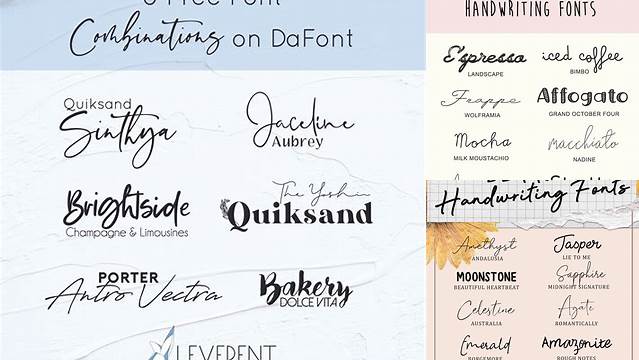
Handwriting Fonts: Free Dafont Downloads & Usage Guide
Hey guys! Are you on the hunt for that perfect handwritten touch to give your project some personality? Look no further! In this guide, we're diving deep into the world of handwriting fonts dafont, exploring everything from where to find them, how to use them, and even some of the coolest examples out there. Whether you're designing invitations, crafting a logo, or just want to add a personal flair to your digital notes, we've got you covered. So, grab a coffee, get comfy, and let's get started!
1. Exploring the Variety of Handwriting Fonts on Dafont
Dafont is a treasure trove when it comes to handwriting fonts dafont. You can find everything from elegant cursive scripts to playful, childlike scrawls. The sheer variety can be overwhelming, but that's part of the fun! Take some time to browse through the different categories. Are you looking for something formal for a wedding invitation, or something more casual for a blog post? Understanding your needs will help you narrow down your search. Remember to check the preview text to see how the font looks with your specific words or phrases. Many fonts also come with extra glyphs or alternate characters, which can add even more personality to your design. Don't be afraid to experiment and try out a few different fonts before settling on the perfect one. Finding the right handwriting fonts dafont is like finding the perfect pair of shoes – it might take a little trial and error, but it's worth it in the end!
3. Using Handwriting Fonts Dafont in Graphic Design Projects
Handwriting fonts dafont can add a unique touch to your graphic design projects, making them stand out from the crowd. Whether you're designing a logo, creating social media graphics, or working on a website, the right handwritten font can convey personality and authenticity. When using these fonts, consider the overall aesthetic of your project. Does the font match the tone and style you're going for? Is it legible and easy to read? Overusing handwritten fonts can sometimes make your design look cluttered or unprofessional, so use them sparingly and strategically. Pair them with clean, simple sans-serif fonts for a balanced and modern look. Also, pay attention to the kerning and tracking of the font, adjusting the spacing between letters to improve readability. Experiment with different colors, sizes, and weights to see what works best for your design. And most importantly, have fun! Let your creativity flow and see how handwriting fonts dafont can transform your projects.
4. Best Practices for Legibility with Handwriting Fonts
Alright, let's talk legibility. Handwriting fonts dafont are awesome, but let's be real – some of them can be a little tricky to read. To ensure your message gets across clearly, here are a few best practices. First, consider the size of the font. Handwritten fonts often look better and are easier to read when they're larger. Second, choose a font with clear and distinct letterforms. Avoid fonts that are too stylized or have overly elaborate flourishes. Third, pay attention to the contrast between the font color and the background color. High contrast will improve readability. Fourth, use ample spacing between lines and letters. Cramped text is difficult to read, no matter how beautiful the font is. Fifth, test your design on different devices and screen sizes to make sure the font looks good on everything from desktops to smartphones. By following these tips, you can ensure that your handwriting fonts dafont are both stylish and legible.
6. Pairing Handwriting Fonts with Other Font Styles
Handwriting fonts dafont are fantastic on their own, but they can be even more effective when paired with other font styles. The key is to create a balance between personality and readability. A common approach is to pair a handwritten font with a clean, simple sans-serif font. For example, you might use a handwritten font for headings and a sans-serif font for body text. This creates a visual hierarchy and makes the text easier to read. Another option is to pair a handwritten font with a classic serif font, such as Times New Roman or Garamond. This can create a sophisticated and timeless look. When pairing fonts, pay attention to the overall mood and tone of your design. Do the fonts complement each other, or do they clash? Experiment with different combinations until you find something that works. And remember, less is often more. It's usually best to stick to two or three fonts in a single design. So go ahead, mix and match those handwriting fonts dafont with other font styles to create something truly unique!
7. Using Handwriting Fonts for Logos and Branding
Using handwriting fonts dafont for logos and branding can give your brand a personal and authentic feel. A handwritten logo can convey a sense of creativity, warmth, and approachability. However, it's important to choose a font that is both visually appealing and legible. Avoid fonts that are too cluttered or difficult to read, especially at smaller sizes. Consider the overall style of your brand. Does a handwritten font align with your brand's values and personality? If you're a high-end luxury brand, a handwritten font might not be the best choice. But if you're a small business that values personal connection, a handwritten logo can be a great way to connect with your customers. Also, make sure to test your logo on different backgrounds and in different sizes to ensure it looks good in all contexts. And remember, a logo is more than just a font. It's a visual representation of your brand. So choose a handwriting fonts dafont that truly reflects who you are and what you stand for.
8. Handwriting Fonts for Wedding Invitations and Stationery
Handwriting fonts dafont are a classic choice for wedding invitations and stationery. They add a touch of elegance, romance, and personalization to your special day. Whether you're looking for a formal script or a more casual hand-lettered style, there's a handwritten font out there that's perfect for you. When choosing a font for your wedding invitations, consider the overall theme and style of your wedding. A formal wedding might call for a traditional script font, while a rustic or bohemian wedding might be better suited for a more informal handwritten font. Pay attention to the legibility of the font, especially when printing on textured paper. Test different font sizes and colors to see what looks best. And don't forget to include other design elements, such as floral illustrations or decorative borders, to enhance the overall look and feel of your invitations. With the right handwriting fonts dafont, your wedding invitations will be a beautiful reflection of your unique style and personality.
9. Creating a Personal Touch with Handwritten Fonts in Marketing
Handwriting fonts dafont can inject a dose of personality into your marketing materials, making your brand feel more approachable and human. In a world dominated by sleek, corporate designs, a touch of handwriting can help you stand out from the crowd. Use handwritten fonts in your social media graphics, email newsletters, website headers, and even print ads. A handwritten font can make your message feel more personal and authentic, as if it were written just for your audience. However, be mindful of legibility. Choose fonts that are easy to read, even at smaller sizes. And don't overuse handwritten fonts – a little goes a long way. Pair them with clean, simple fonts for a balanced and professional look. By incorporating handwriting fonts dafont into your marketing strategy, you can create a stronger connection with your audience and build a more memorable brand.
10. The Psychology of Handwriting Fonts: Why They Work
Have you ever wondered why handwriting fonts dafont are so appealing? It's all about psychology. Handwritten fonts evoke feelings of nostalgia, warmth, and authenticity. They remind us of handwritten letters, personal notes, and the human touch. In a digital world, where everything is polished and perfect, a handwritten font can feel like a breath of fresh air. It adds a sense of personality and humanity to your design. When you use a handwritten font, you're not just communicating information – you're also communicating emotion. You're creating a connection with your audience on a deeper level. This is why handwritten fonts are so effective in marketing, branding, and design. They tap into our emotions and make us feel something. So next time you're choosing a font, consider the psychology behind it. A handwriting fonts dafont might be just what you need to create a lasting impression.
11. Popular Handwriting Font Styles on Dafont: A Closer Look
Dafont boasts a myriad of handwriting fonts dafont, each with its own distinct character. Let's explore some popular styles: Script fonts emulate elegant cursive, perfect for invitations or logos. Brush fonts mimic the look of hand-painted lettering, adding a bold and artistic touch. Marker fonts replicate the casual feel of a marker pen, ideal for playful designs. Print fonts resemble neat handwriting, suitable for body text or captions. Calligraphy fonts showcase intricate strokes and flourishes, lending a touch of sophistication. Each style evokes a different mood, so choose wisely based on your project's needs. Explore the vast selection of handwriting fonts dafont to discover the perfect match for your creative vision.
12. Troubleshooting Common Issues with Dafont Font Installation
Encountering issues while installing handwriting fonts dafont? Don't fret! Here's a quick troubleshooting guide: First, ensure the font file is compatible with your operating system. Check if the file is corrupted by redownloading it. Close and reopen the application where you intend to use the font. Sometimes, a simple restart is all it takes. If the font doesn't appear, clear your font cache. On Windows, this involves deleting files in the Windows/Fonts folder. On macOS, use Font Book to resolve font conflicts. If all else fails, consult online forums or tutorials for specific solutions. Remember, patience is key! With a bit of perseverance, you'll have those handwriting fonts dafont up and running in no time.
13. Licensing Considerations for Using Handwriting Fonts Dafont
Before using handwriting fonts dafont in your projects, understand the licensing terms. Dafont offers fonts with varying licenses, ranging from personal use to commercial use. Personal use fonts are free for non-commercial projects, like school assignments or personal blogs. Commercial use fonts may require a license fee for business-related applications. Check the font's license agreement before incorporating it into logos, marketing materials, or products for sale. Some licenses may have restrictions on modifications or redistribution. Ignoring licensing terms can lead to legal repercussions. When in doubt, contact the font designer or the website offering the font for clarification. Play it safe and ensure you have the necessary rights to use those beautiful handwriting fonts dafont.
14. How to Create Your Own Handwriting Font
Ever dreamt of turning your own handwriting into a font? With the right tools and a bit of patience, you can create your own handwriting fonts dafont style! Several online services and software programs allow you to digitize your handwriting. Simply write out each letter, number, and symbol on a template, scan it, and upload it to the platform. The software will then convert your handwriting into a usable font file. You can customize the font's spacing, kerning, and other attributes to refine its appearance. Creating your own font is a fun and rewarding way to add a personal touch to your designs. Share your unique creation with friends, family, or even sell it online. Unleash your inner font designer and transform your handwriting fonts dafont into a digital masterpiece.
15. The Impact of Handwriting Fonts on Website Design
Handwriting fonts dafont can significantly impact your website's design, influencing its overall aesthetic and user experience. A well-chosen handwritten font can add personality, warmth, and authenticity to your site, making it more engaging and memorable. However, use them sparingly and strategically. Overusing handwritten fonts can clutter the design and hinder readability. Use them for headings, logos, or call-to-action buttons to create visual interest. Pair them with clean, sans-serif fonts for body text to ensure legibility. Consider the overall tone and style of your website. A formal website may not be suitable for playful handwritten fonts. Choose fonts that align with your brand identity and target audience. With careful consideration, handwriting fonts dafont can elevate your website's design and create a lasting impression.
16. Handwriting Fonts for Social Media Graphics
Spice up your social media presence with handwriting fonts dafont! These fonts add a personal touch to your graphics, making your posts more engaging and shareable. Use them for quotes, announcements, or promotional messages to grab attention. Experiment with different styles, from elegant scripts to casual doodles, to match your brand's aesthetic. Ensure the font is legible on various devices and screen sizes. Use contrasting colors to make the text stand out against the background. Avoid overcrowding the graphic with too much text. A clear and concise message is more effective. With the right handwriting fonts dafont, you can create eye-catching social media graphics that resonate with your audience and boost your brand's visibility.
17. The Evolution of Handwriting Fonts in Digital Design
The evolution of handwriting fonts dafont in digital design reflects the changing trends and preferences of designers and users alike. Initially, digital fonts were limited by technical constraints, resulting in blocky and unrefined letterforms. As technology advanced, designers gained the ability to create more intricate and realistic handwritten fonts. Today, a vast array of handwriting fonts is available, ranging from traditional scripts to modern brushstrokes. These fonts have become increasingly popular in web design, graphic design, and branding, adding a personal and human touch to digital interfaces. The evolution of handwriting fonts dafont continues as designers experiment with new styles and techniques, pushing the boundaries of digital typography.
18. Calligraphy vs. Handwriting Fonts: Understanding the Nuances
Calligraphy and handwriting fonts, both found among handwriting fonts dafont, offer distinct aesthetics. Calligraphy fonts mimic formal, artistic lettering, often with elegant strokes and flourishes. They evoke sophistication and tradition. Handwriting fonts, on the other hand, replicate everyday handwriting, with a more casual and personal feel. They range from neat print to messy scrawls. The choice between calligraphy and handwriting fonts depends on the project's purpose. Use calligraphy fonts for formal invitations or logos that require a touch of elegance. Opt for handwriting fonts for blog posts, social media graphics, or designs that aim for a friendly and approachable vibe. Understanding the nuances of each style allows you to select the perfect handwriting fonts dafont for your creative endeavors.
19. Creating a Consistent Brand Identity with Handwriting Fonts
Handwriting fonts dafont can be a powerful tool for creating a consistent brand identity, but it requires careful planning. Choose a font that reflects your brand's personality and values. Use it consistently across all your marketing materials, from your logo to your website to your social media graphics. Consistency is key to building brand recognition and establishing a cohesive visual identity. Consider the font's legibility and readability. Ensure it looks good in various sizes and on different backgrounds. Avoid using too many different fonts, as this can create a cluttered and unprofessional look. With a well-chosen handwriting fonts dafont and consistent application, you can create a strong and memorable brand identity that resonates with your target audience.
20. Font Pairing Strategies for Complementary Handwriting Fonts
Mastering font pairing is crucial when working with handwriting fonts dafont. The goal is to create a harmonious and visually appealing combination. Pair a bold, attention-grabbing handwriting font with a clean and simple sans-serif font for body text. This creates a balanced and readable design. Alternatively, pair a delicate script font with a classic serif font for a touch of elegance. Avoid pairing two highly stylized fonts, as this can create a chaotic and overwhelming effect. Consider the font's weight, size, and spacing when pairing them. Experiment with different combinations until you find a pairing that complements each other and enhances the overall design. With the right font pairing strategies, handwriting fonts dafont can elevate your designs to new heights.
21. The Role of Kerning and Tracking in Handwriting Font Aesthetics
Kerning and tracking play a crucial role in the aesthetics of handwriting fonts dafont. Kerning refers to the spacing between individual letters, while tracking refers to the overall spacing between all letters in a word or line. Adjusting these settings can significantly impact the readability and visual appeal of your font. Too little kerning can make the letters appear cramped and difficult to read, while too much kerning can make the letters feel disconnected. Similarly, tight tracking can make the text look dense, while loose tracking can make it feel airy. Experiment with different kerning and tracking settings to find the optimal balance for your handwriting fonts dafont, ensuring a visually pleasing and easy-to-read result.
22. Incorporating Handwriting Fonts in Video Editing Projects
Handwriting fonts dafont can add a unique and personal touch to your video editing projects. Use them for titles, subtitles, or lower thirds to create a handcrafted feel. Choose fonts that align with the overall tone and style of your video. A playful handwriting font can add a lighthearted touch to a vlog, while an elegant script font can enhance the sophistication of a wedding video. Animate the text to make it more dynamic and engaging. Consider the font's legibility on different screen sizes and resolutions. Ensure the text is easy to read against the background. With careful incorporation, handwriting fonts dafont can elevate your video editing projects and make them more visually appealing.
23. Handwriting Fonts for Print vs. Digital Media: Considerations
When using handwriting fonts dafont, consider the differences between print and digital media. In print, fonts are typically rendered at higher resolutions, allowing for finer details and smoother curves. This means you can use more intricate and delicate handwriting fonts without sacrificing legibility. In digital media, fonts are often rendered at lower resolutions, which can make fine details appear blurry or pixelated. Therefore, it's best to choose handwriting fonts that are clean and legible, even at smaller sizes. Test your fonts on different devices and screen sizes to ensure they look good in all contexts. With careful consideration, you can choose handwriting fonts dafont that work well in both print and digital media.
24. Exploring Different Weights and Styles within Handwriting Font Families
Many handwriting fonts dafont come in various weights and styles, offering versatility and flexibility for your design projects. Weights refer to the thickness of the font, ranging from light to bold. Styles refer to variations in the font's design, such as italic, condensed, or expanded. Experiment with different weights and styles to create visual hierarchy and emphasis in your designs. Use a bold weight for headings and a lighter weight for body text. Use italic for emphasis or to set off quotes. Consider the overall tone and style of your project when choosing weights and styles. With the diverse options available within handwriting font families, you can create a cohesive and visually appealing design that reflects your brand's personality.
25. The Art of Combining Handwriting Fonts with Photography
Combining handwriting fonts dafont with photography can create visually stunning and emotionally resonant designs. Use handwriting fonts to add text overlays to your photos, creating captions, quotes, or personalized messages. Choose fonts that complement the style and mood of your photos. A playful handwriting font can add a whimsical touch to a portrait, while an elegant script font can enhance the romance of a landscape. Consider the color and contrast of the text against the background. Ensure the text is legible and doesn't distract from the photo. With a skillful combination of handwriting fonts dafont and photography, you can create captivating visuals that tell a story and evoke emotions.
26. Using Handwriting Fonts to Evoke Nostalgia and Vintage Aesthetics
Handwriting fonts dafont are excellent for evoking nostalgia and vintage aesthetics in your designs. Choose fonts that resemble the handwriting styles of past eras, such as antique scripts, retro brushstrokes, or vintage print styles. Use these fonts to create logos, posters, or packaging designs that transport viewers back in time. Pair them with vintage color palettes, textures, and illustrations to enhance the nostalgic effect. Consider the historical context of the font and use it appropriately. A carefully chosen handwriting fonts dafont can add a touch of authenticity and charm to your vintage-inspired designs.
27. Creating Handwriting Font Mockups for Client Presentations
Creating handwriting font mockups is essential for showcasing your designs to clients and ensuring they understand your vision. Use mockup templates to visualize how the font will look in different contexts, such as logos, websites, or print materials. Present your mockups in a professional and visually appealing manner. Explain your font choices and how they align with the client's brand identity. Solicit feedback and make revisions based on the client's preferences. High-quality handwriting fonts dafont mockups can help you communicate your design ideas effectively and secure client approval.
28. The Future of Handwriting Fonts: Trends and Innovations
The future of handwriting fonts dafont is exciting, with new trends and innovations constantly emerging. Expect to see more realistic and nuanced handwriting fonts that capture the subtle variations and imperfections of human handwriting. Variable fonts will allow designers to customize font weights, widths, and other attributes, creating even more unique and personalized typography. AI-powered tools may automate the font creation process, making it easier for anyone to create their own handwriting fonts. As technology advances, handwriting fonts dafont will continue to evolve and play an increasingly important role in digital design.
29. Ethical Considerations When Using Free Handwriting Fonts
When using free handwriting fonts dafont, it's essential to consider ethical implications. Always respect the font creator's license agreement. If a font is only licensed for personal use, do not use it for commercial projects without obtaining permission. Give credit to the font designer whenever possible. Be mindful of the potential for cultural appropriation when using fonts that are inspired by specific cultures or traditions. If you're unsure about the ethical implications of using a particular font, err on the side of caution and choose a different font or purchase a commercial license. Responsible use of handwriting fonts dafont ensures that designers are fairly compensated for their work and that cultural heritage is respected.
30. Resources for Learning More About Typography and Font Design
To deepen your understanding of typography and font design, explore various resources online and offline. Websites like Typography.com, I Love Typography, and Typewolf offer valuable insights and inspiration. Books like "The Elements of Typographic Style" by Robert Bringhurst and "Thinking with Type" by Ellen Lupton are essential reading for any aspiring typographer. Online courses and workshops can provide hands-on training in font design and typography principles. By investing in your knowledge and skills, you can become a more confident and effective designer, capable of creating beautiful and impactful designs with handwriting fonts dafont.